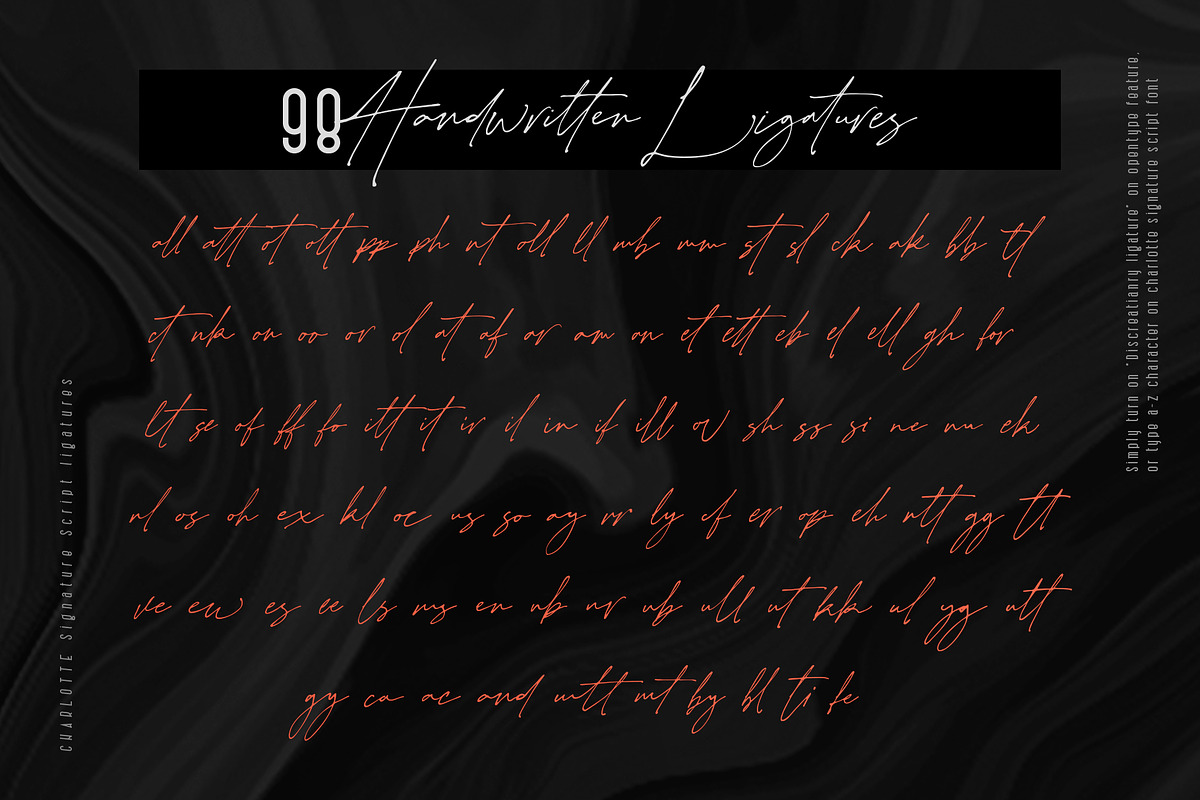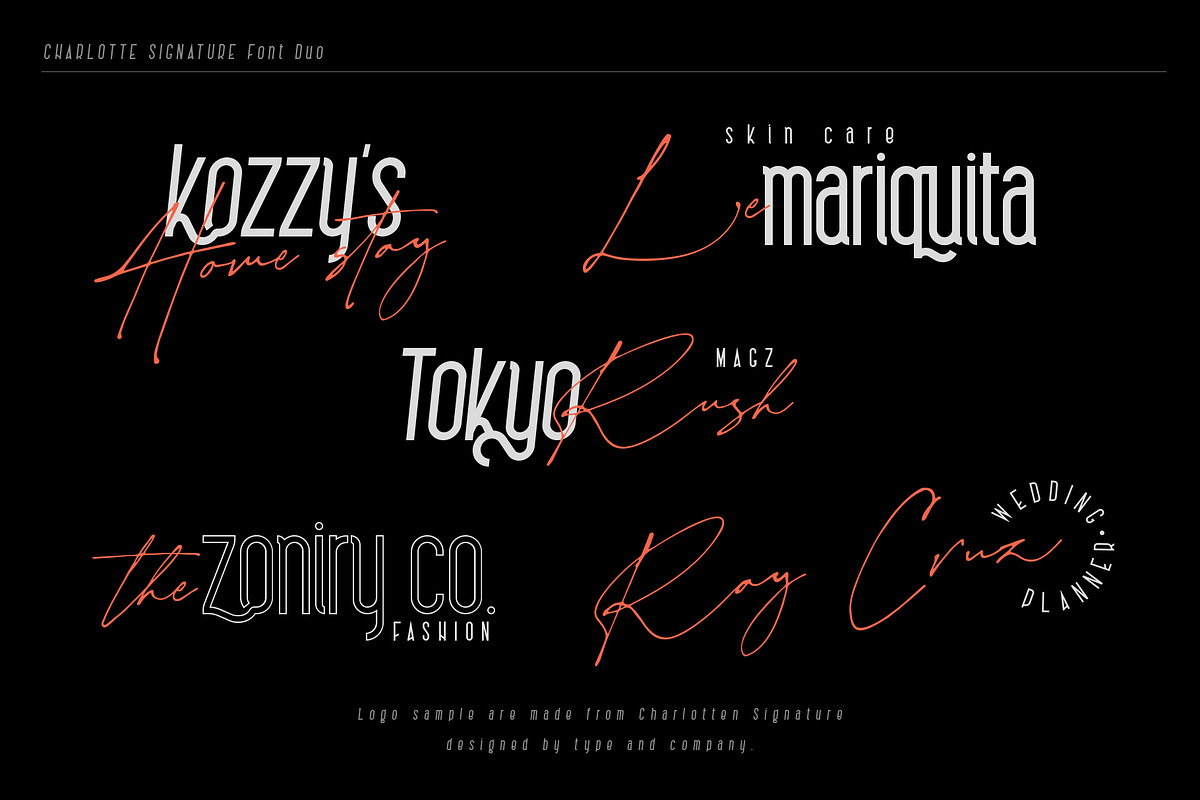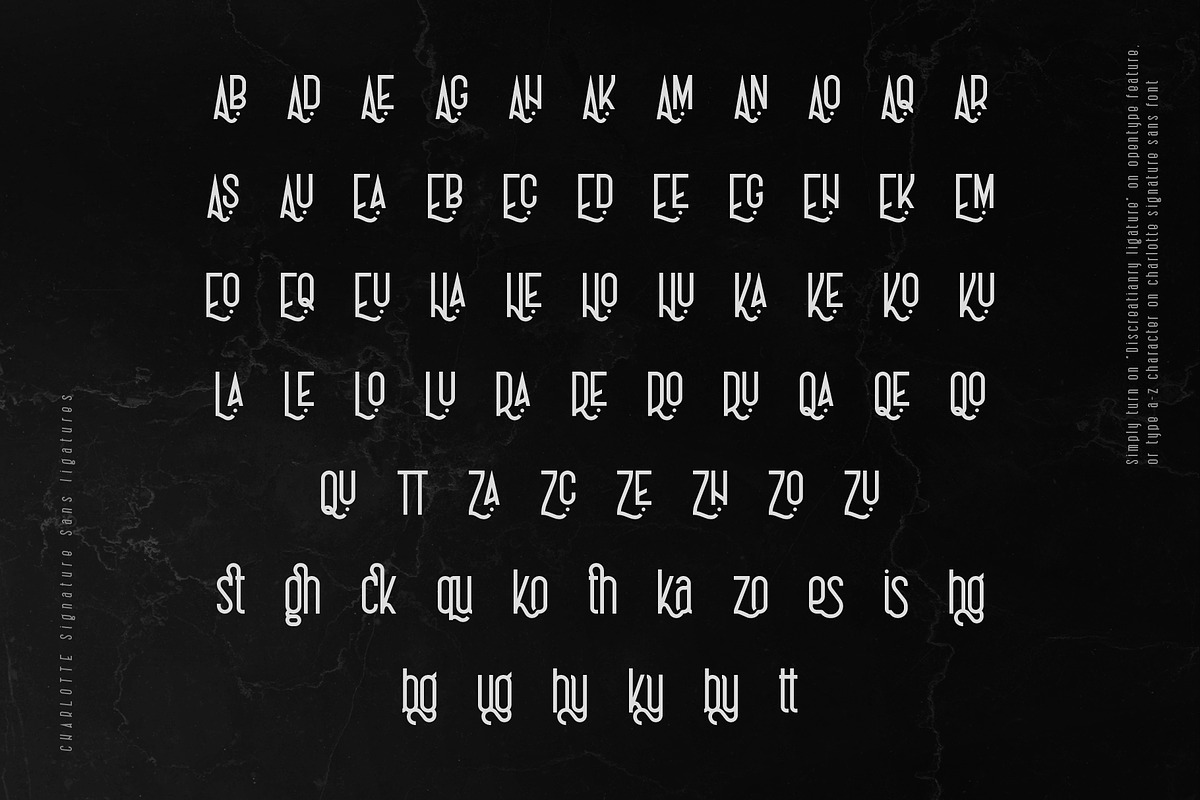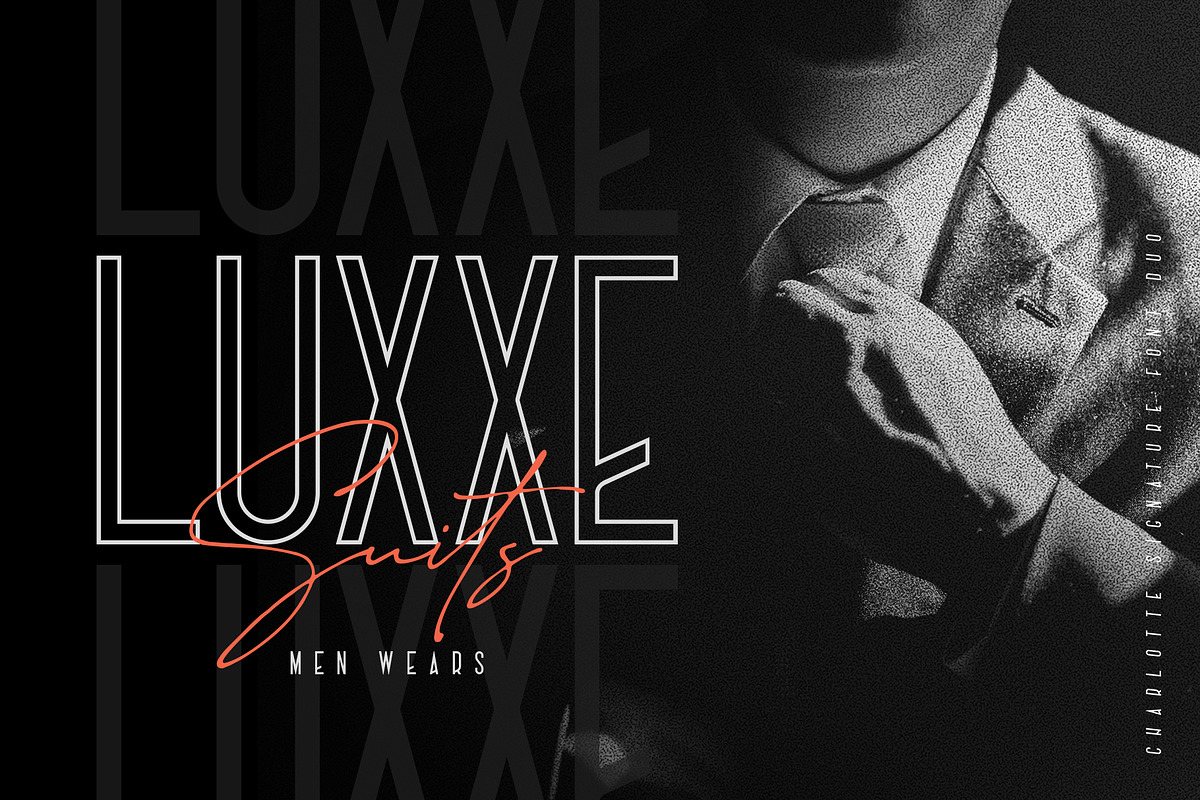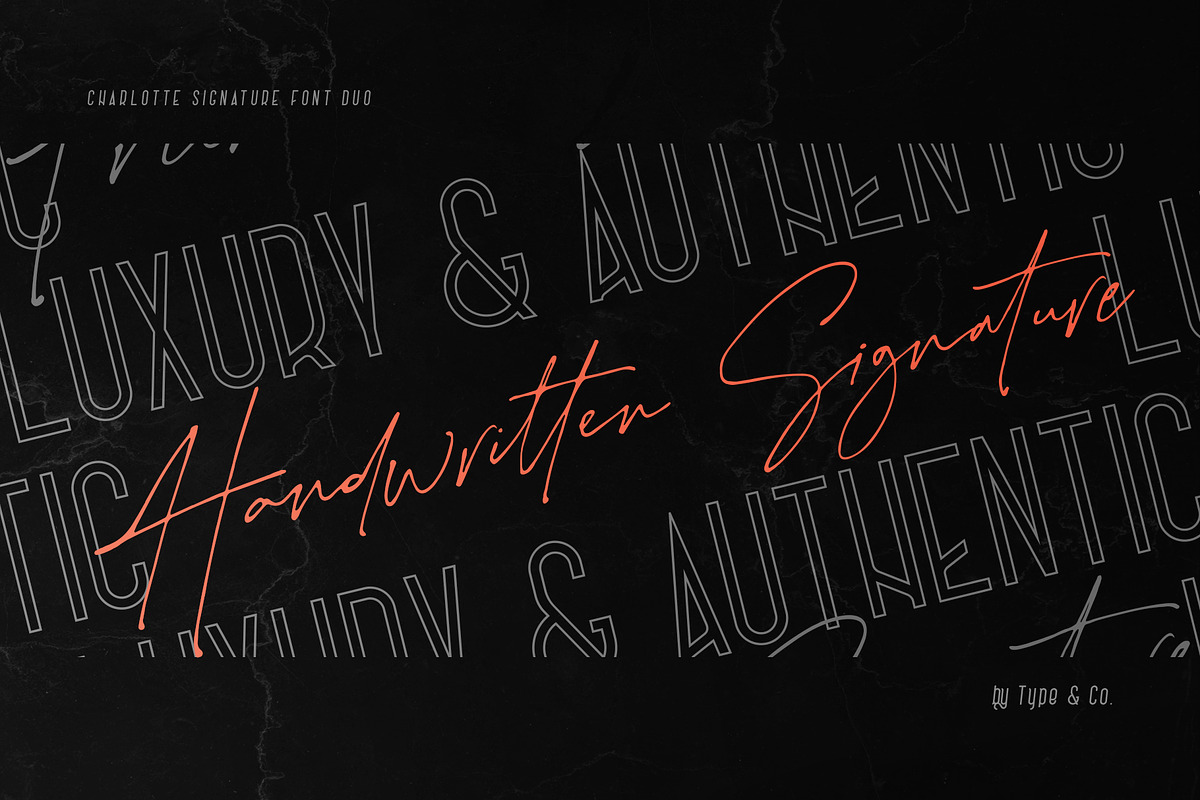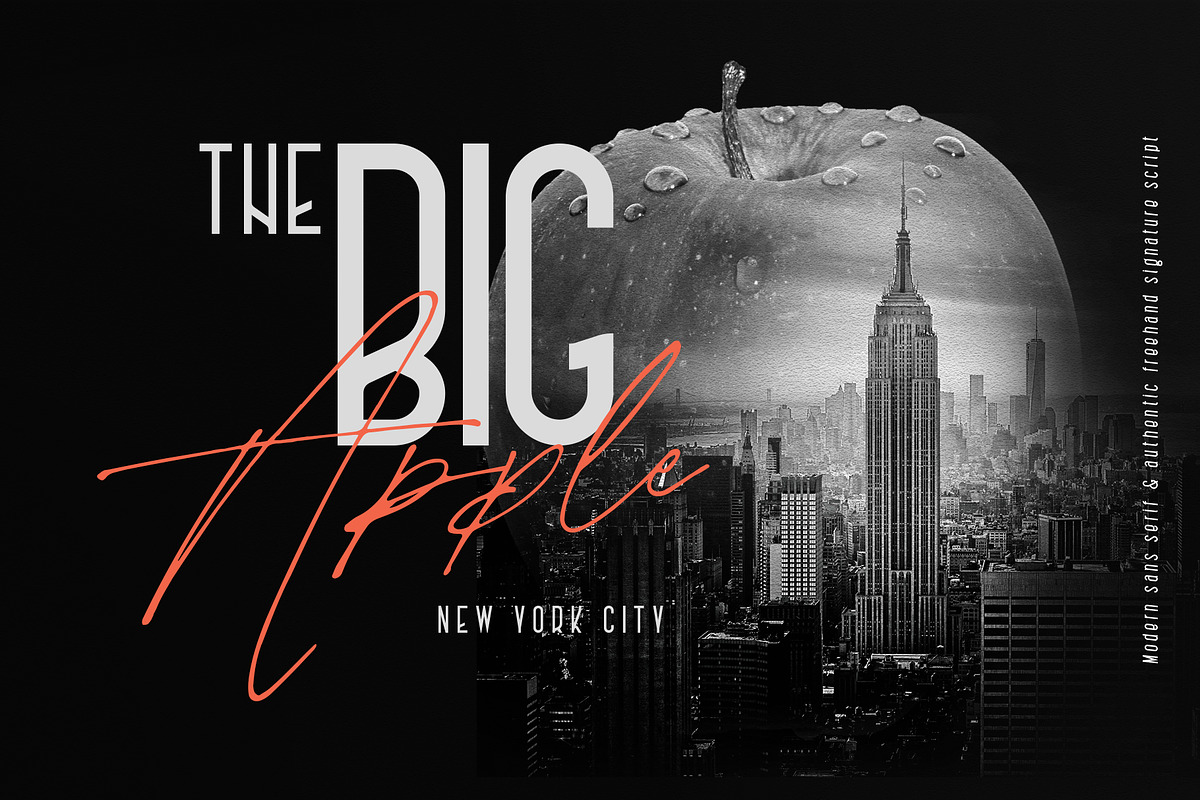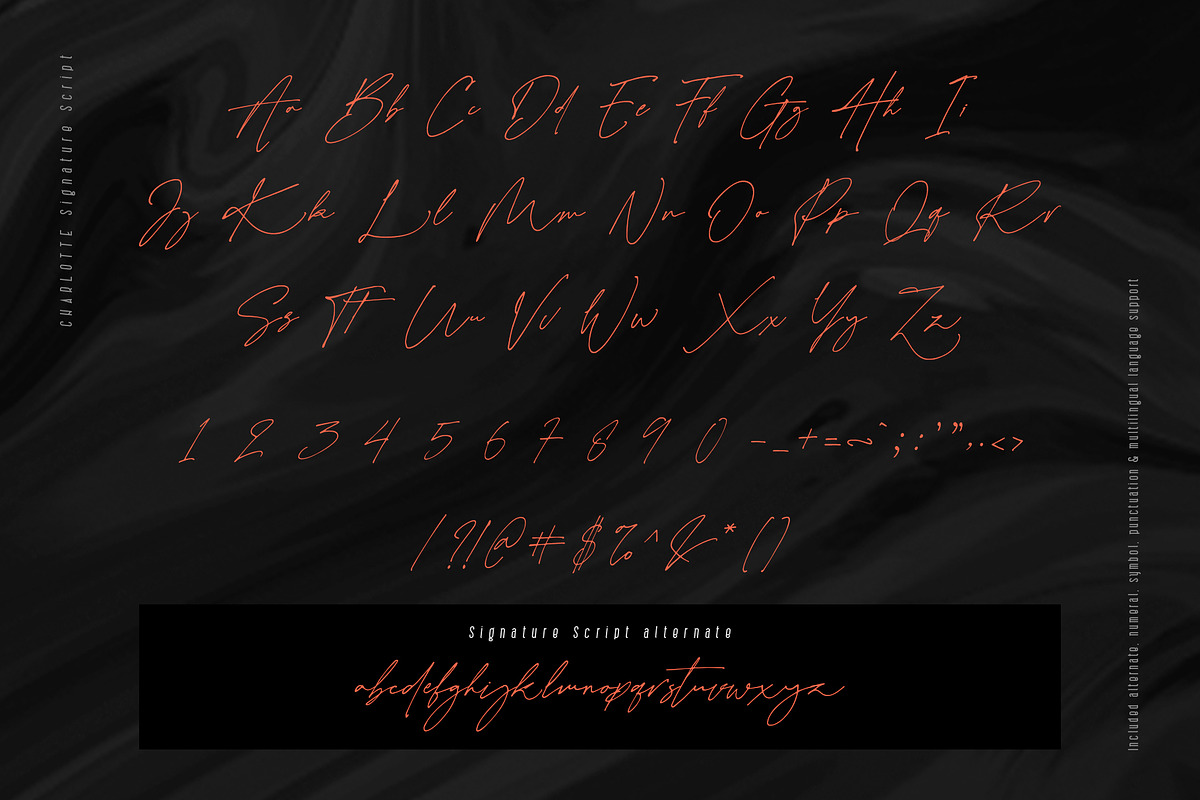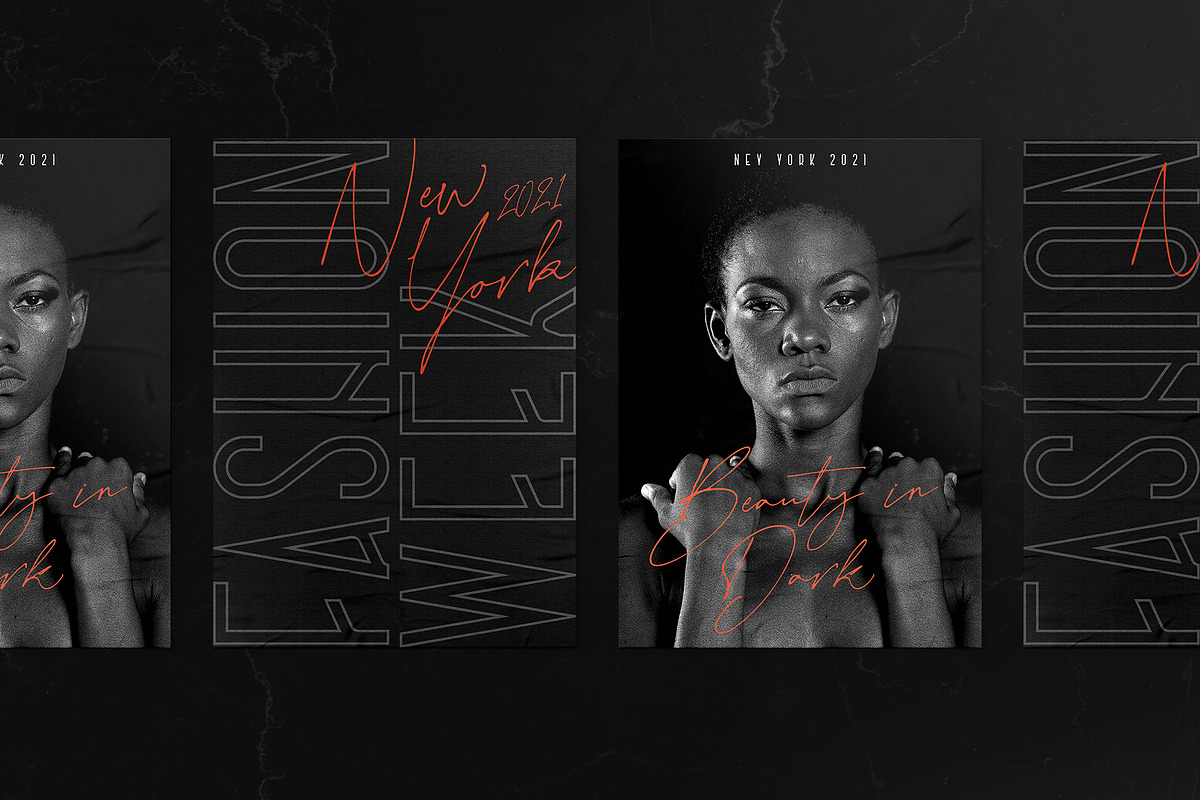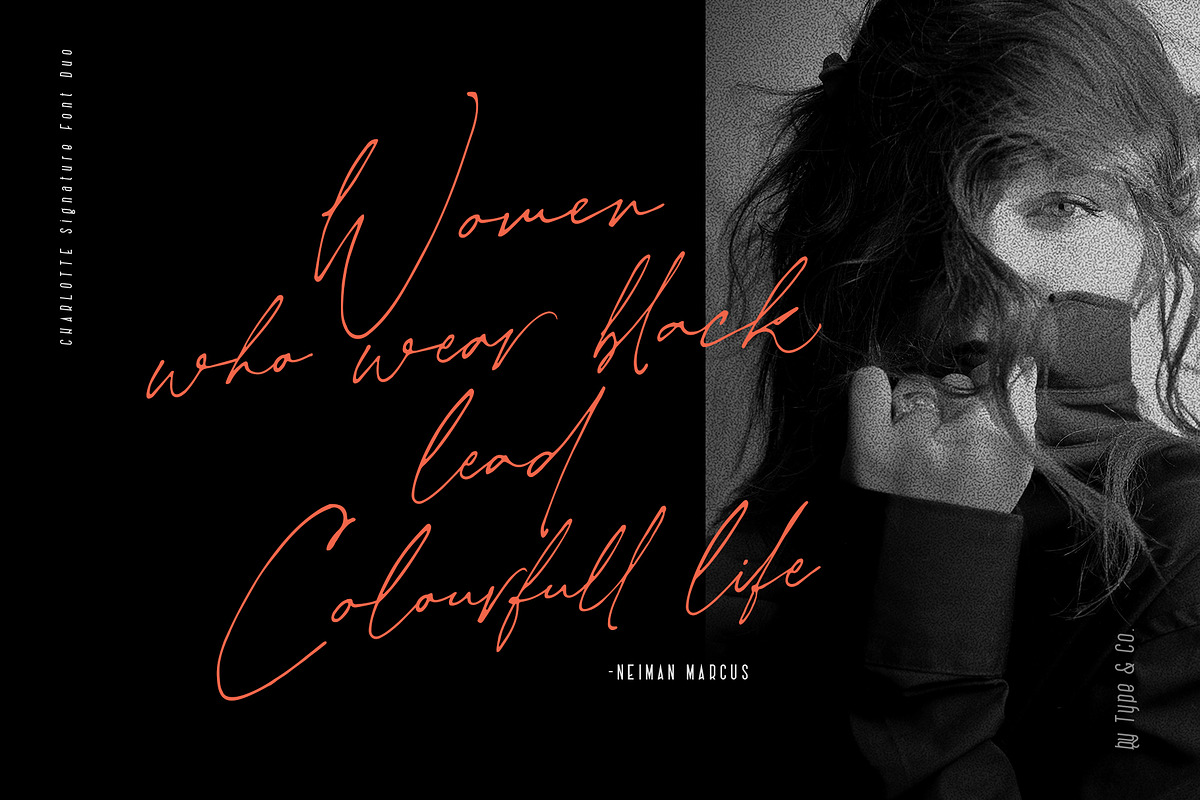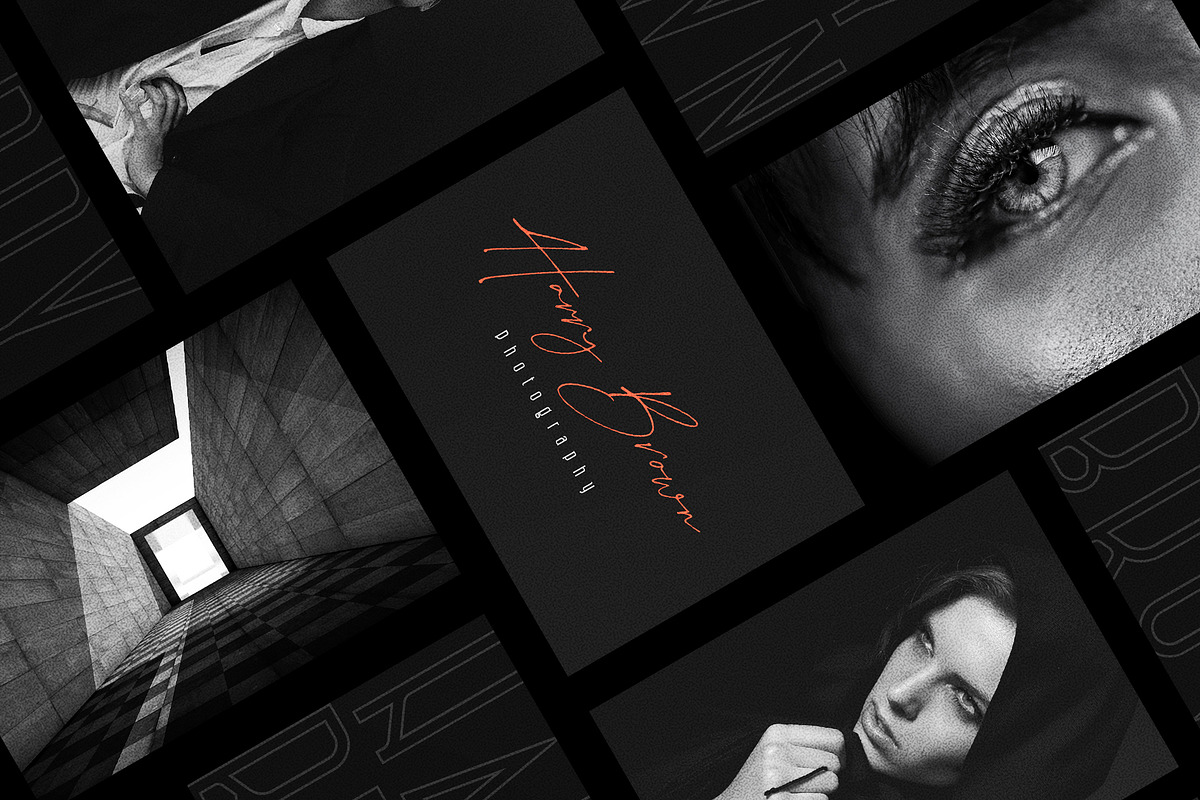
Charlotte Signature Font Duo
Charlotte Signature is an elegant font combo that brings together a unique blend of modern with smooth curve sans-serif and authentic handwritten script font created using a real nib pen.
With the combination of two different fonts, this is best to create logotypes, label design, posters, magazines, all kinds of merchandise, branding, and many different design projects.